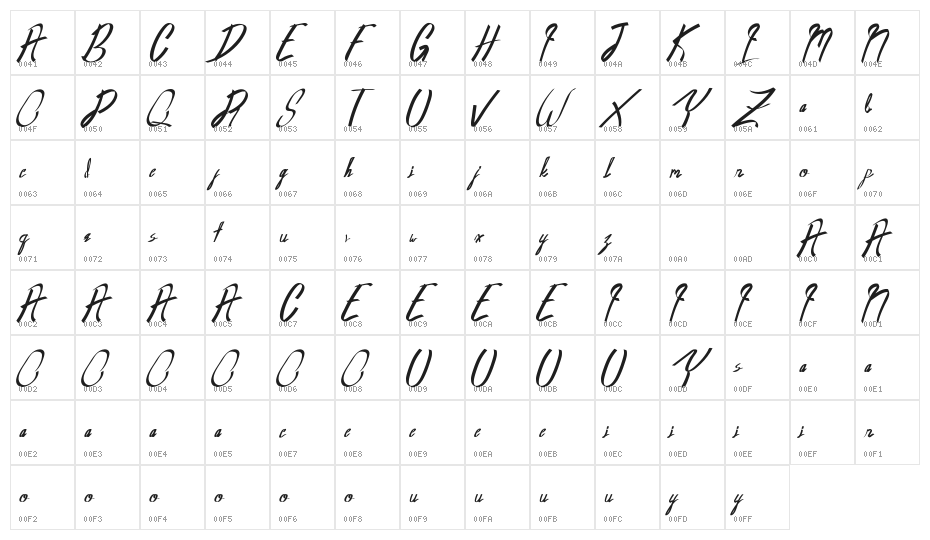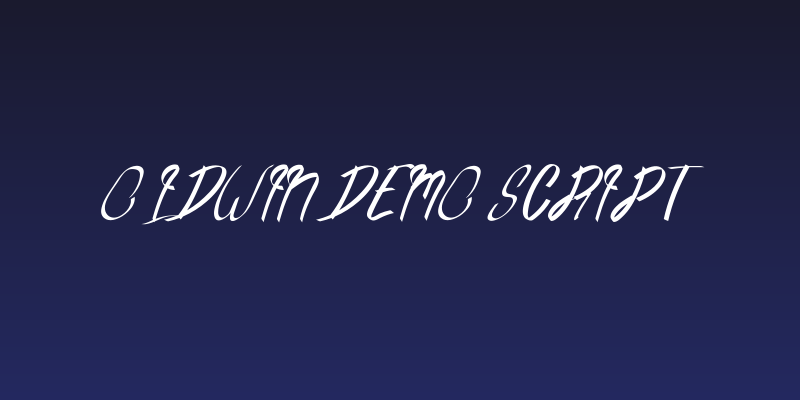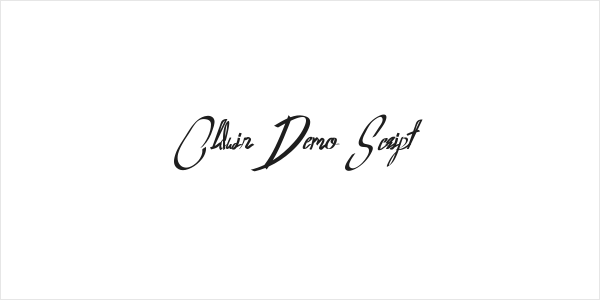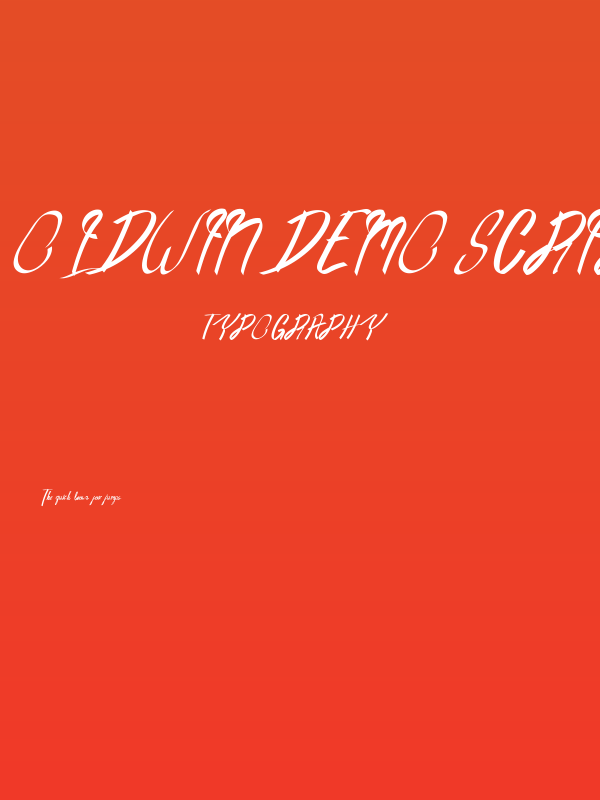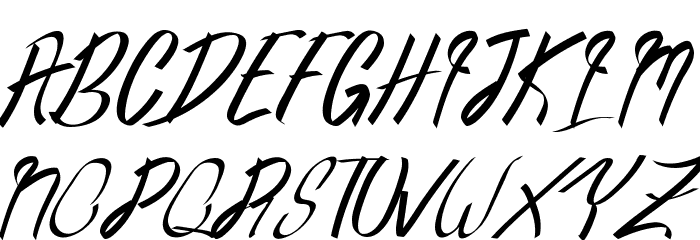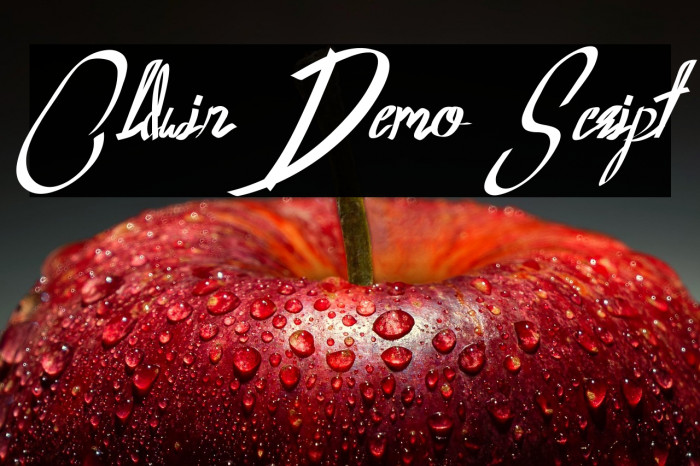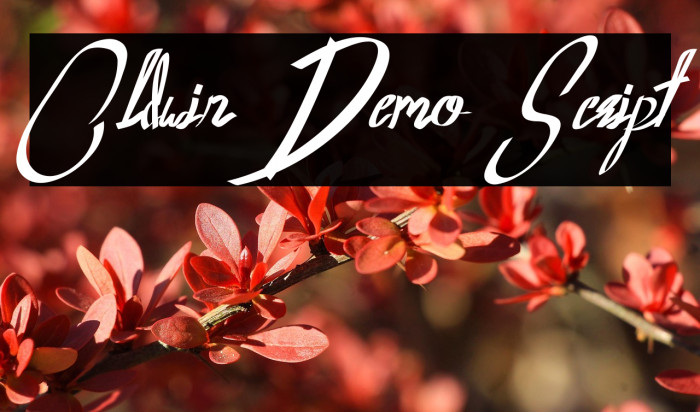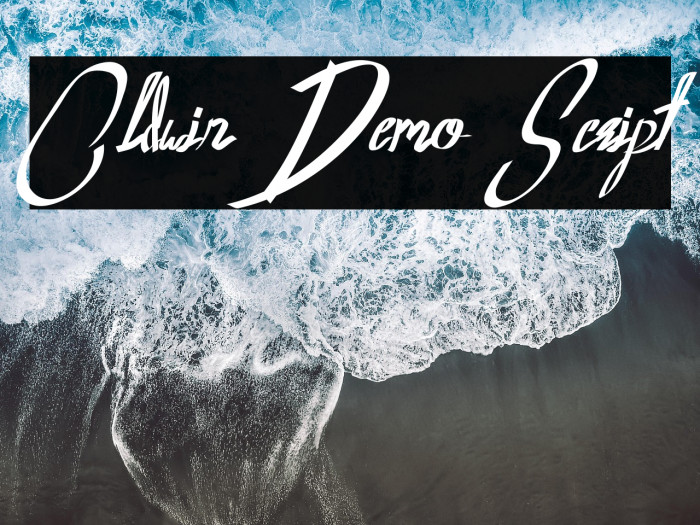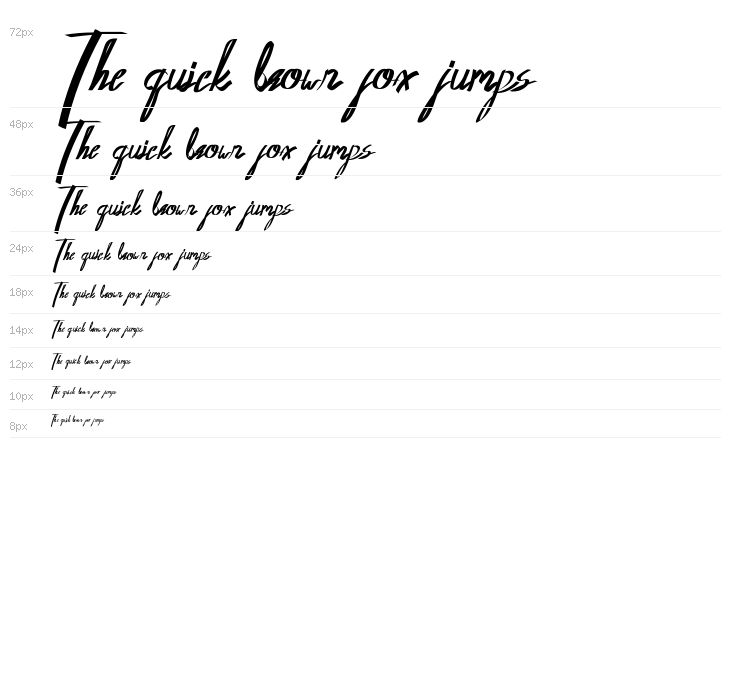
Oldwin Demo Script Font
Oldwin Demo Script Description
This font features an elegant and flowing script style, characterized by its dynamic and fluid strokes. The uppercase letters are bold and sweeping, with a distinct slant that adds a sense of motion and grace. The lowercase letters maintain the same fluidity, with intricate loops and curves that enhance its decorative appeal. The numbers and special characters are designed with the same attention to detail, ensuring consistency throughout. This font's overall appearance is both sophisticated and artistic, making it suitable for projects that require a touch of elegance and creativity.